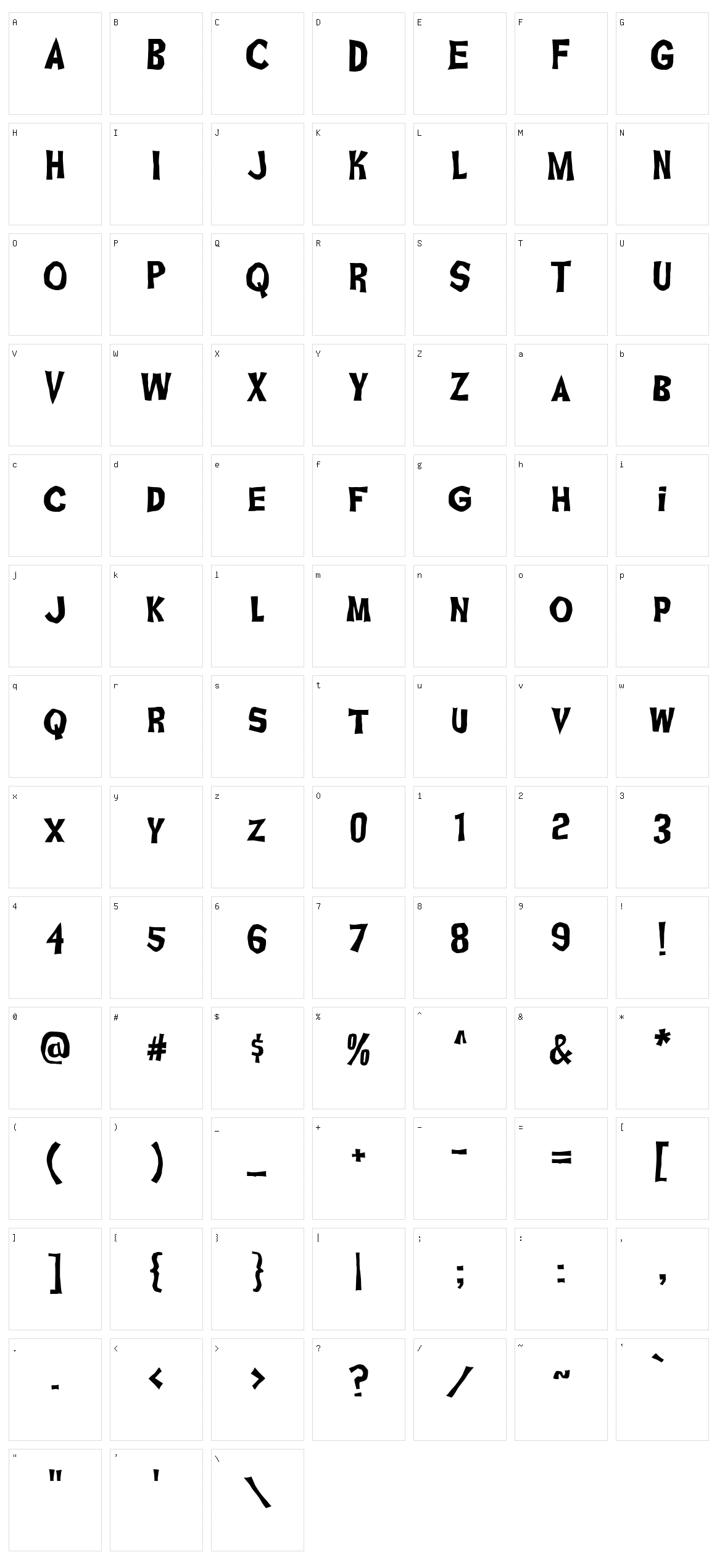
The free font Ghoulish Fright AOE is carefully designed by Astigmatic One Eye Typographic Institute, showcasing a thoughtful balance of creativity and usability and falls under the Horror font style. When you download the ZIP file, it contains only 266.8 KB of font files, making it lightweight and quick to download. Please review the license details below to understand permitted usage and distribution rights. If license information is not available, we recommend using this font for personal projects only or contacting the author directly for commercial usage permissions.